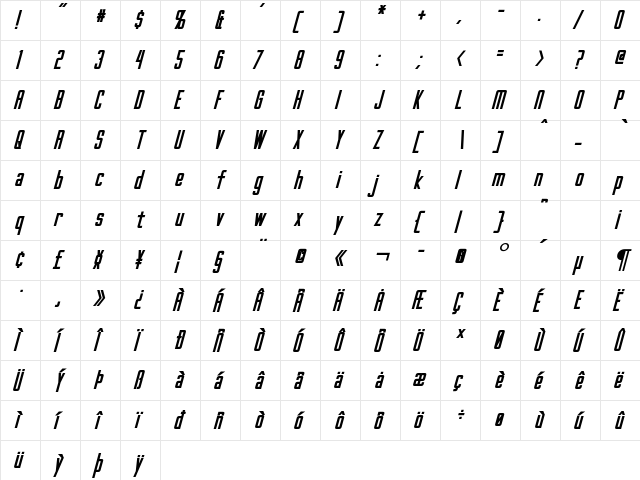
Gotham Nights Bold Italic Font Preview
| Foundry | Neale Davidson |
| Designer | Neale Davidson |
Design Context for Gotham Nights Typeface
Gotham Nights takes a measured approach to typography — its balanced proportions and neutral character make it a reliable workhorse for both digital and print work. The dynamic lean of this cut emphasises speed and emphasis in any layout. Its bold stroke weight gives it real presence on the page.